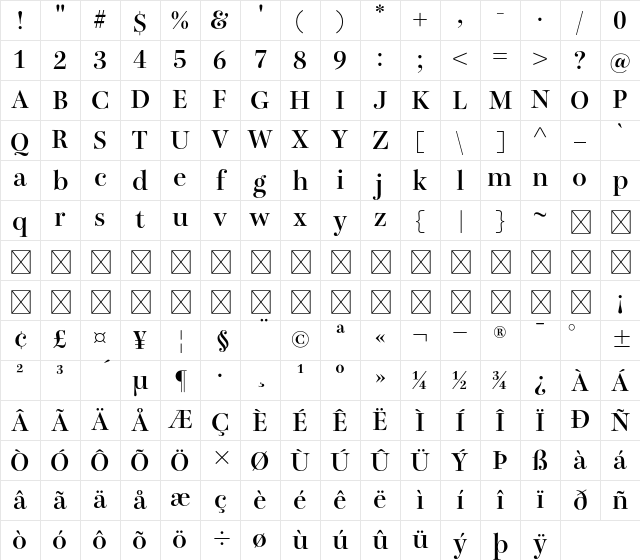
A P-OTF Bunkyu MidasiM Std EB
Style: EB
Designer: JIYUKOBO Ltd.
Design Context for A P-OTF Bunkyu MidasiM Std
A P-OTF Bunkyu MidasiM Std is a composed and adaptable typeface that performs quietly and consistently across a wide range of design contexts.